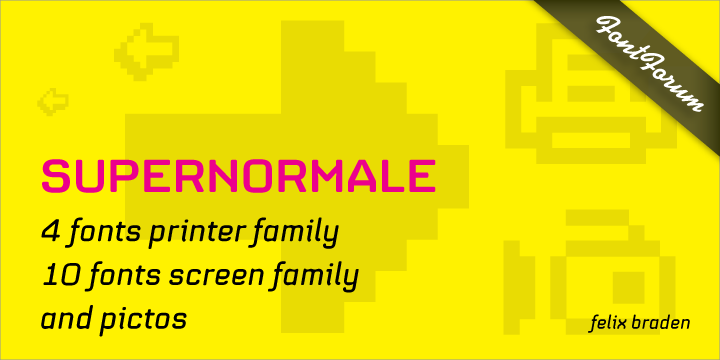
The Supernormale Font is a versatile and meticulously crafted sans-serif typeface, designed to be exceptionally clear, functional, and aesthetically pleasing without being overtly decorative. Imagine this font providing highly legible and understated text for corporate branding, gracing the pages of minimalist design portfolios, or forming the backbone of clean, functional web interfaces. Its balanced proportions, excellent readability, and often subtle geometric precision make it an ideal choice for comprehensive information systems, contemporary art exhibitions, and any project where a sense of modern professionalism, efficiency, and timeless clarity are paramount. Supernormale Font is also perfectly suited for comprehensive information systems, technical diagrams, and any visual content that benefits from an organized, straightforward, and effortlessly authoritative appearance.
What makes Supernormale Font so exciting is its remarkable ability to blend into the background while performing its primary function of clear communication with utmost efficiency. It possesses an inherent sense of order and precision that makes your message feel instantly reliable and easy to digest, without drawing undue attention to itself. The meticulous design ensures optimal legibility even at smaller sizes and in challenging environments, making it a dependable workhorse for both display and extended body text. This font doesn't just display information; it presents it with an air of intelligent design and universal applicability, making every word feel considered and precise. Its adaptability ensures your designs will maintain a professional and uncluttered appearance, seamlessly integrating across various visual contexts.
The Supernormale Font family is typically extensive, reflecting its heritage as a workhorse typeface for diverse applications. You'll often find a wide spectrum of weights, ranging from a delicate Thin or Hairline, through a versatile Light, Regular, and Medium, up to a robust Bold, ExtraBold, or even Black weight. Crucially, most professional sans-serif families like Supernormale also include corresponding Italic or Oblique versions for each weight, significantly expanding its expressive range for emphasis or stylistic variation. Furthermore, it may offer various stylistic alternates, ligatures, and comprehensive extended language support, making it truly adaptable for global and complex typographic requirements. These numerous variations ensure that Supernormale Font can be effectively employed for a vast array of typographic hierarchies, from subtle captions to commanding headlines, all while maintaining a consistent and highly adaptable visual identity. For those seeking the precise Supernormale Font Free Download, its comprehensive family offers unparalleled possibilities for structured, clear, and modern design.